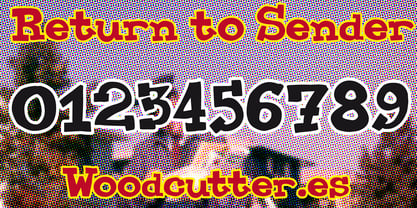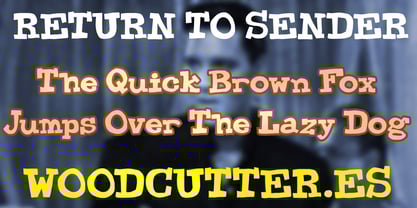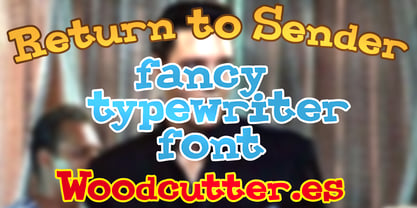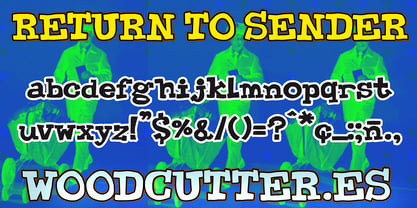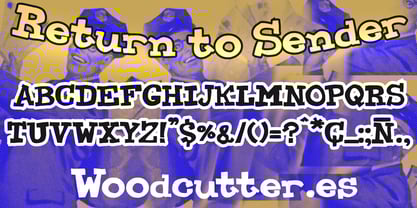
Return to Sender
by Woodcutter
The Return to Sender Font Family was designed by Jordi Manero and published by Woodcutter. Return to Sender contains 1 styles.
“Return to Sender” is a typeface that combines the charm of comic style with the precision of a typewriter. Available in uppercase and lowercase, it features letters with a casual and retro touch, ideal for projects that need to convey personality and originality. Its slightly imperfect strokes full of character evoke a handcrafted feel, while its technical flair adds balance. It includes accents, allowing its use across a variety of languages. Perfect for posters, letters, or designs requiring a creative style with a nostalgic twist.
Designers: Jordi Manero
Publisher: Woodcutter
Foundry: Woodcutter
Design Owner: Woodcutter